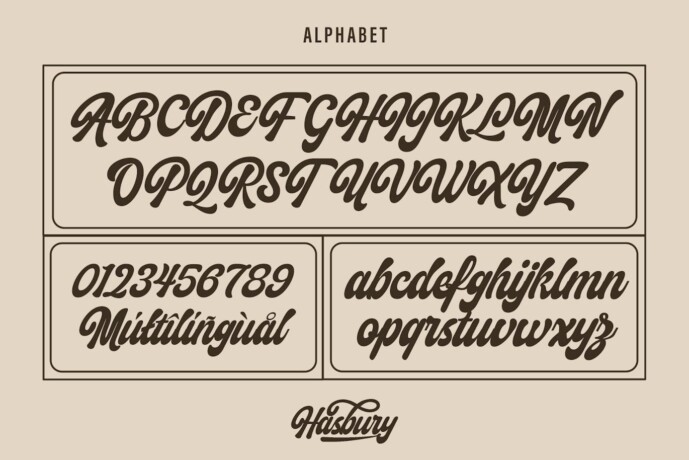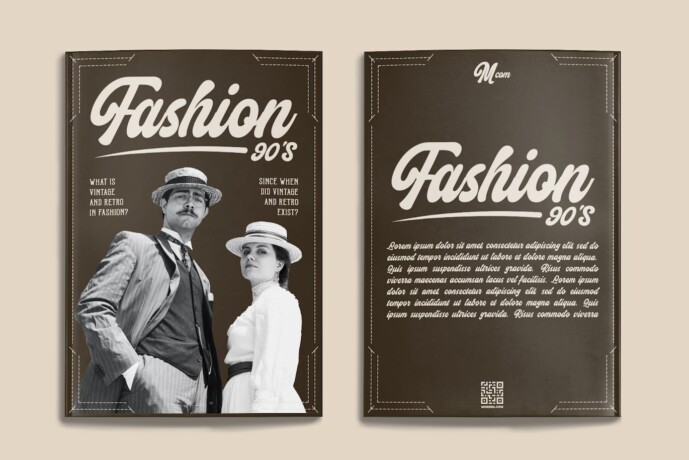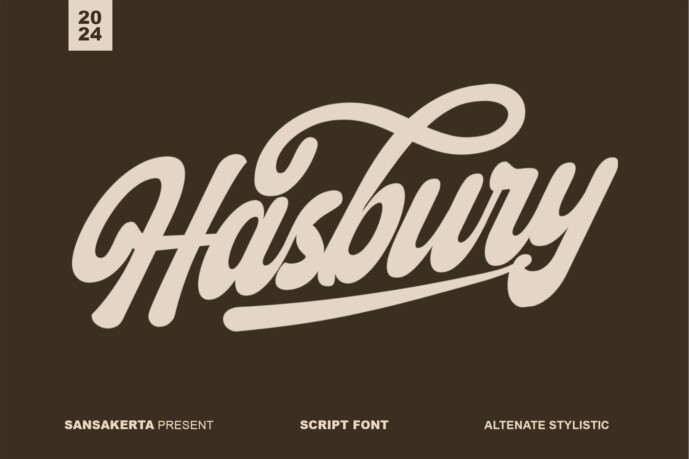
Hasbury Font
Designer: Sansakerta
Hasbury font was handcrafted with inspiration from traditional American typography and lifestyle. It comes with Script, Sans and Serif, which work together perfectly to create a vintage feel. This story is about those who love the outdoors and road adventures, the smell of gasoline and motor oil, who love hard work, American denim and hearty street food.
Hasbury fonts are perfect for vintage style lettering and logotypes, store signs, labels, t-shirts, product packaging and many other uses.